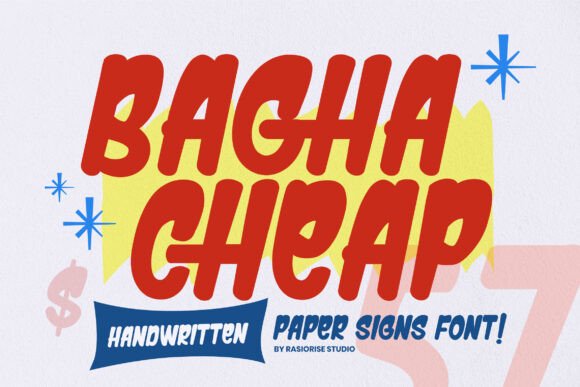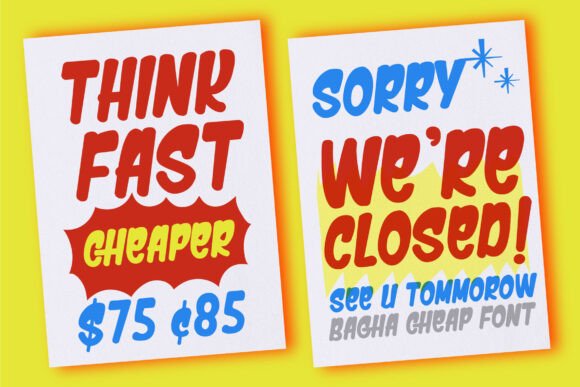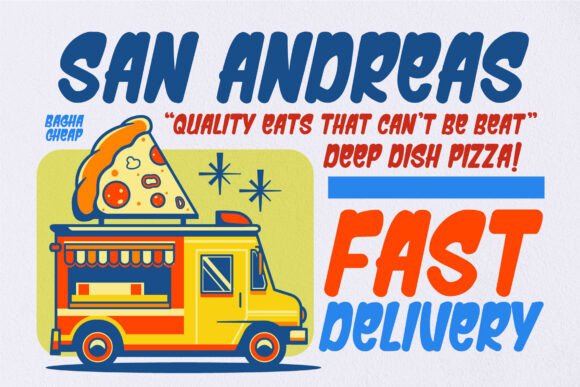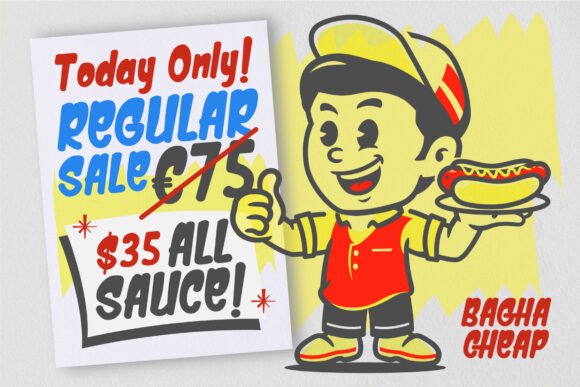
Bagha Cheap Font
About the Bagha Cheap Font
We are excited to introduce Bagha Cheap Font, a must-have typeface for any serious designer. Bagha Cheap has been released for those of you who are looking for a Handletter Paper Signs Font for product info or price information.
A Classic handwritten font that combines the freestyle and bold. This font is inspired by Signs Poster Product and Price information in market . With easy-to-read character font for your project, also you can easily create a great and stand-out typography and number fot headline or a price info. Unleash your creativity with Bagha Cheap Font.
Bagha Cheap’s bold, hand-lettered style is ideally suited for headlines, short taglines, and packaging design where a strong, attention-grabbing aesthetic is desired. It works particularly well for projects with a vintage or handcrafted feel, such as artisanal food branding or signage for a retro-inspired business. Avoid using it for large blocks of body text or UI elements; its informal nature and varying character widths make it less legible for extended reading.
For optimal visual harmony, pair Bagha Cheap with a clean sans-serif like Open Sans for body copy, providing a strong contrast in style while maintaining readability. Alternatively, a delicate serif font such as Lora can add a touch of elegance and sophistication, balancing the boldness of Bagha Cheap. Geometric sans-serif fonts would also complement its slightly irregular forms, offering a modern yet grounded counterpoint.
The overall personality of Bagha Cheap is friendly yet assertive, conveying a sense of approachability combined with a confident, slightly informal brand voice. Its imperfect, hand-drawn quality adds a touch of human warmth, making it suitable for brands that prioritize authenticity and a personal connection with their audience.
Bagha Cheap Font Usage Examples
Bagha Cheap Font Example